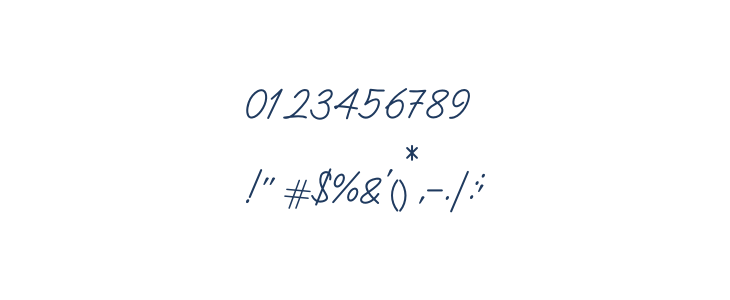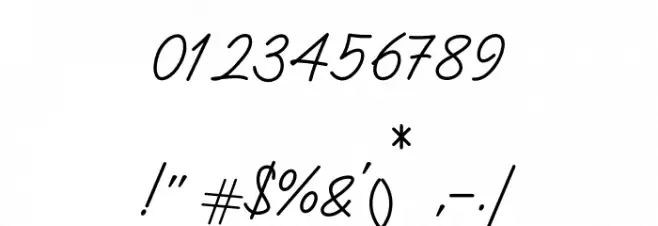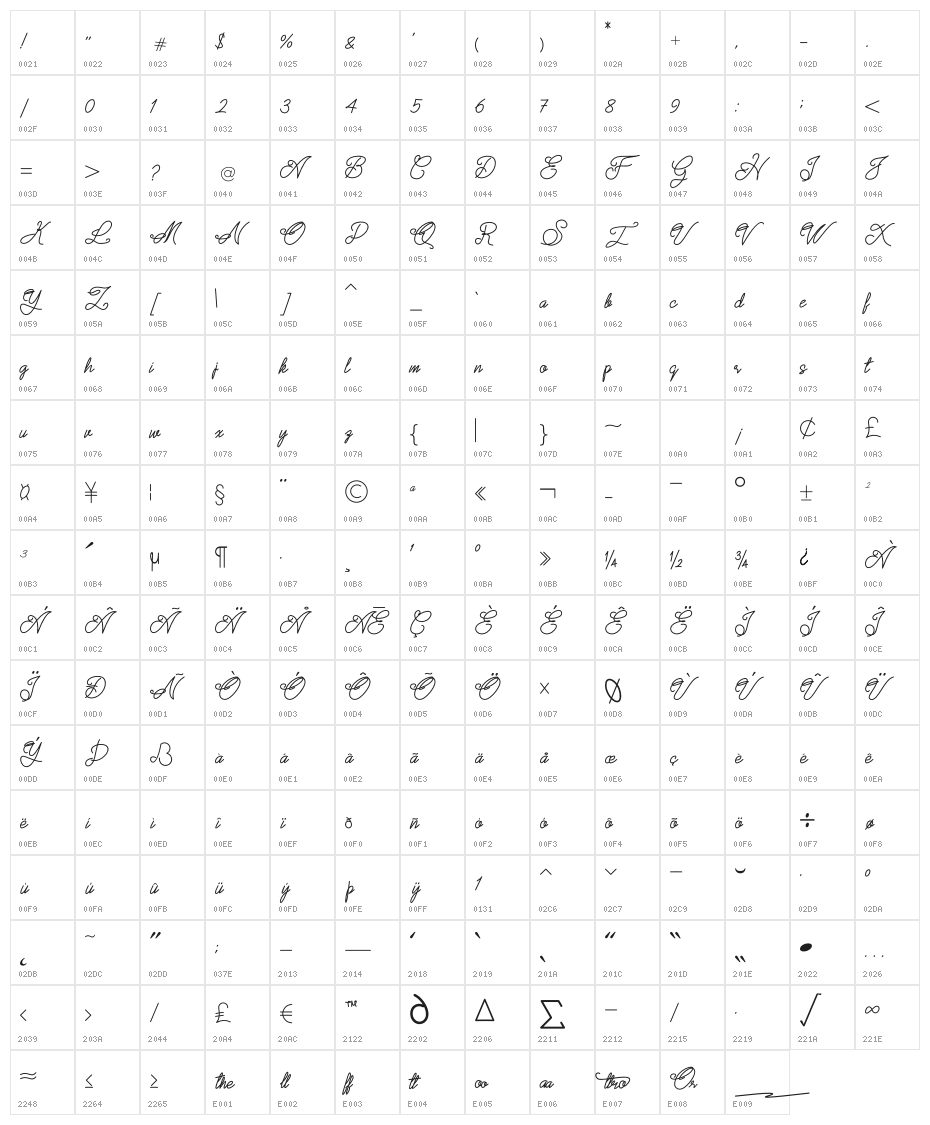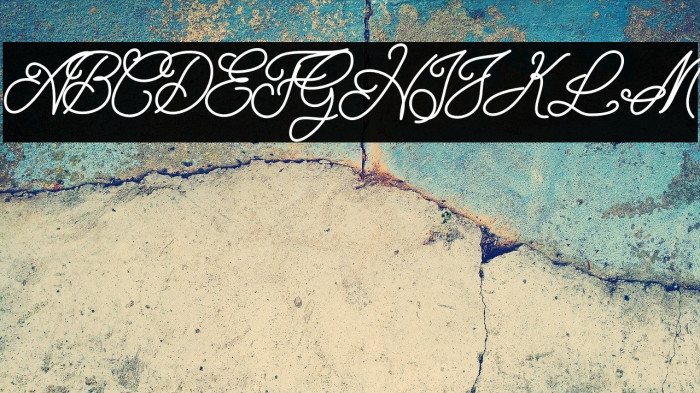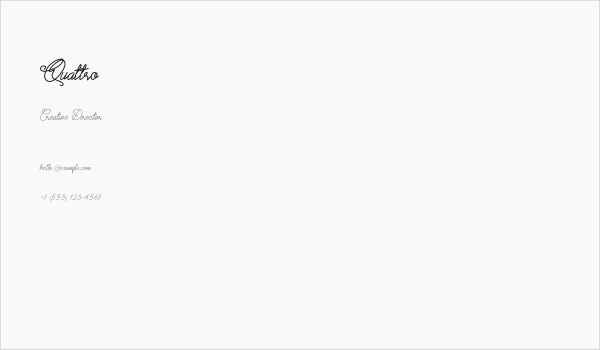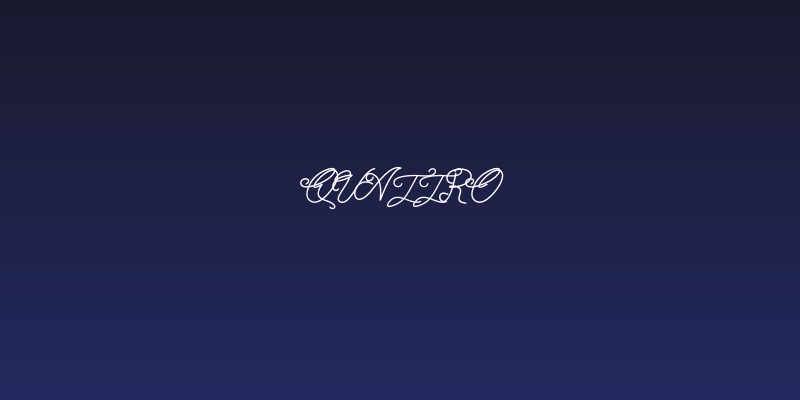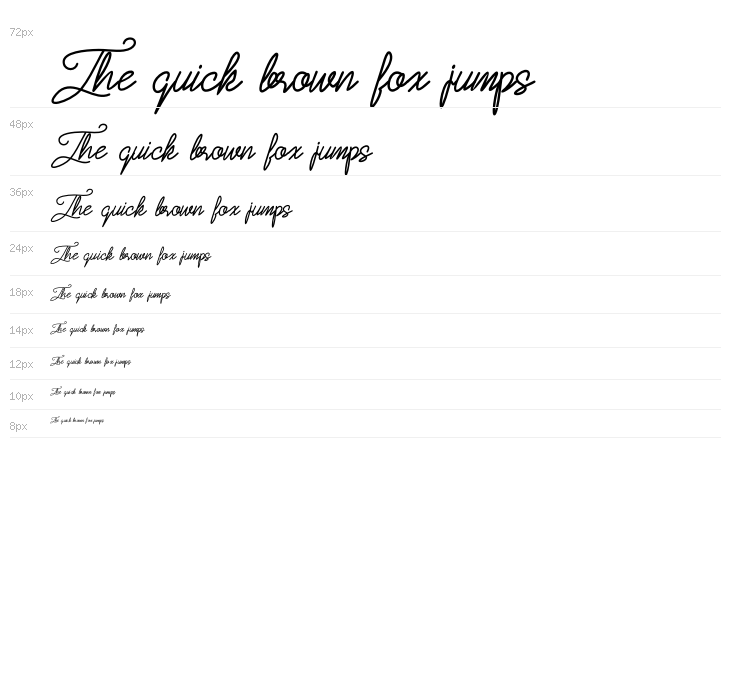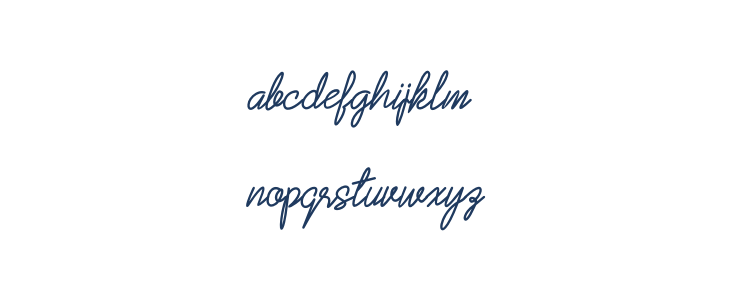
Quattro Font
Quattro Description
This elegant script font features flowing, interconnected letters that exude a sense of sophistication and grace. The uppercase letters are particularly ornate, with elaborate loops and swirls that give them a decorative flair. The lowercase letters maintain a consistent style, with smooth curves and a slightly slanted orientation, enhancing the font's fluidity. Numbers and special characters are designed to match the overall aesthetic, ensuring a cohesive look across all elements. This font is ideal for projects that require a touch of elegance and refinement, such as wedding invitations, formal event programs, or luxury brand logos.
| Proposed Projects | Wedding invitations, formal event programs, luxury brand logos, elegant stationery. |